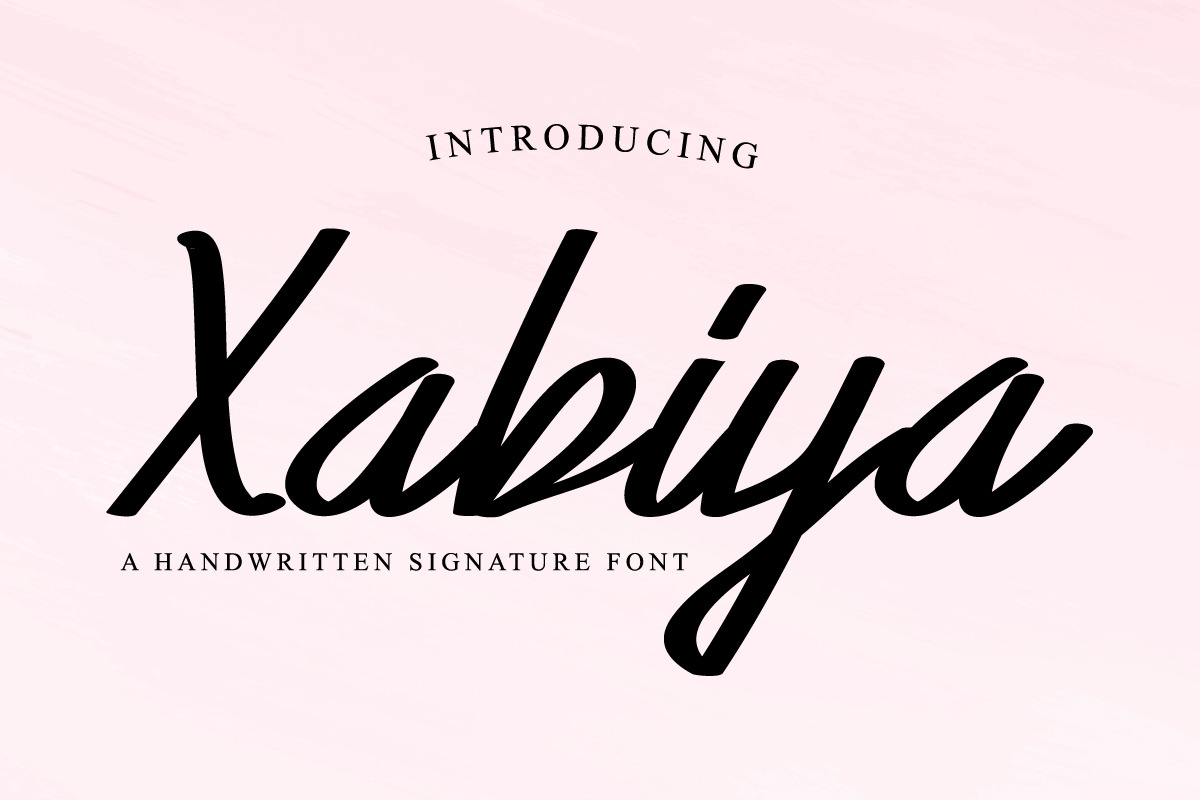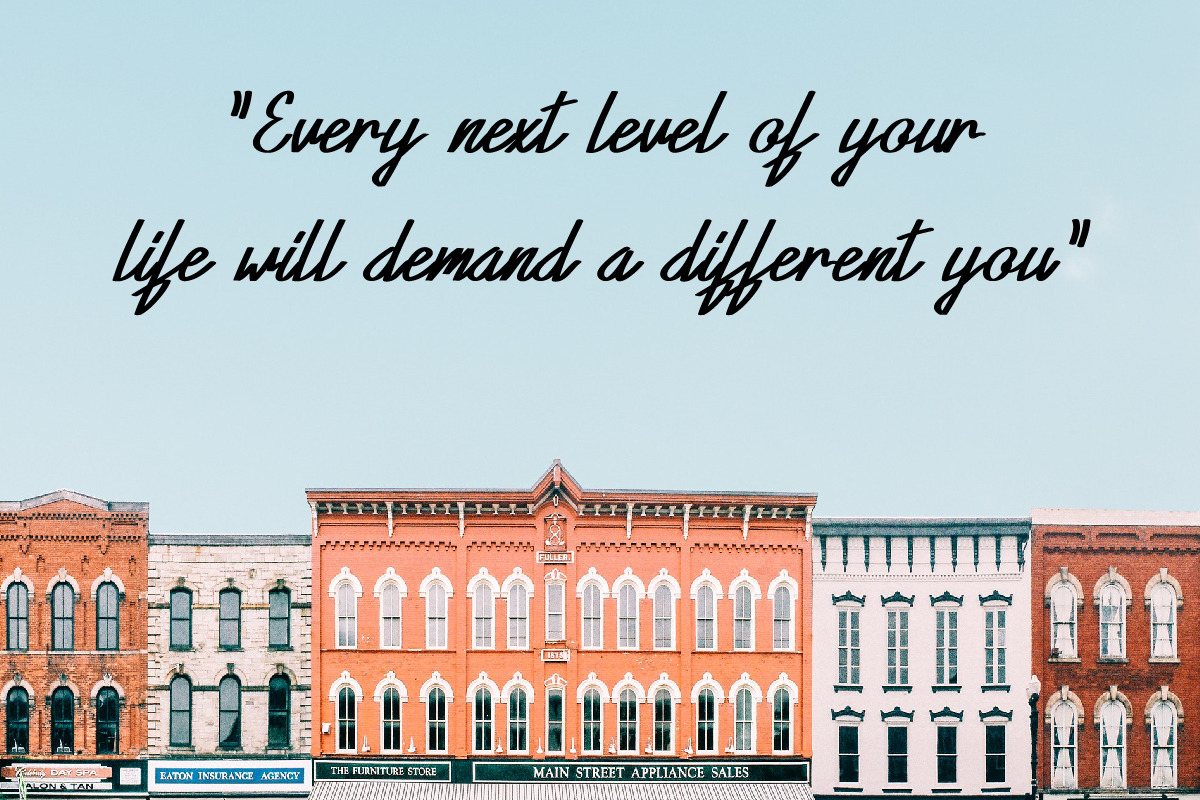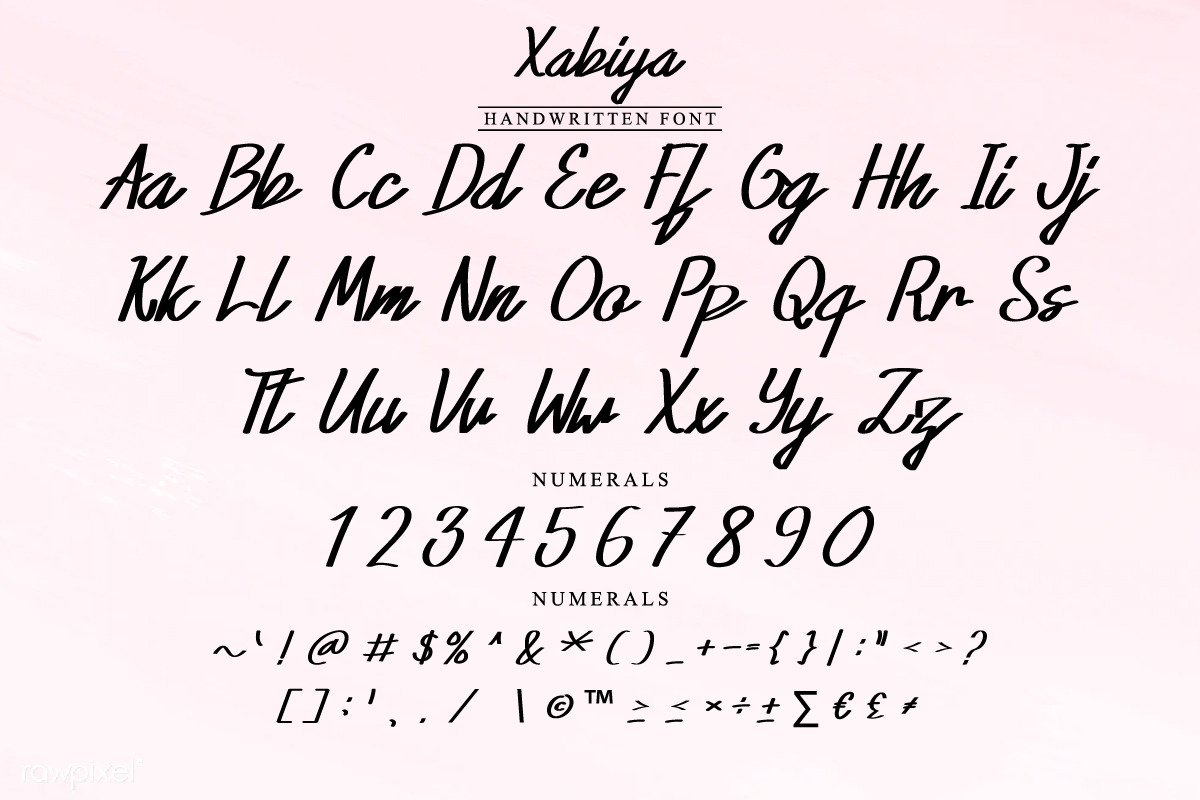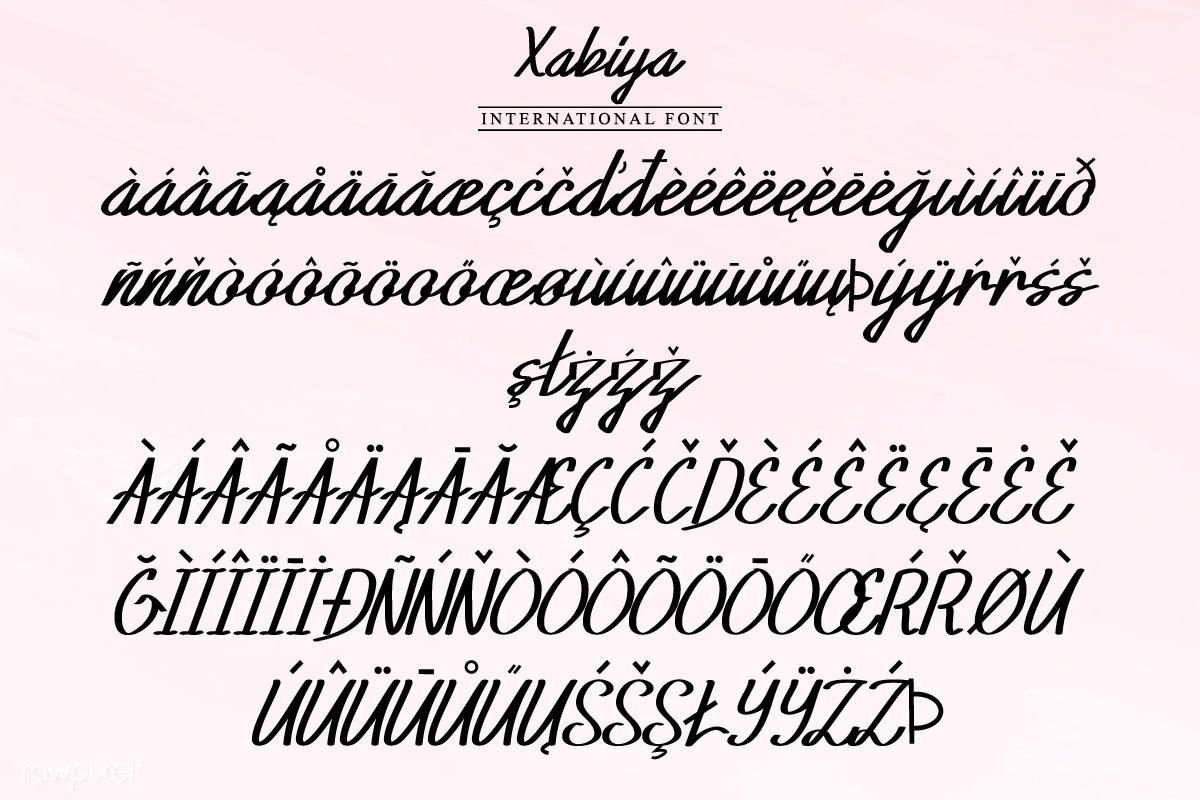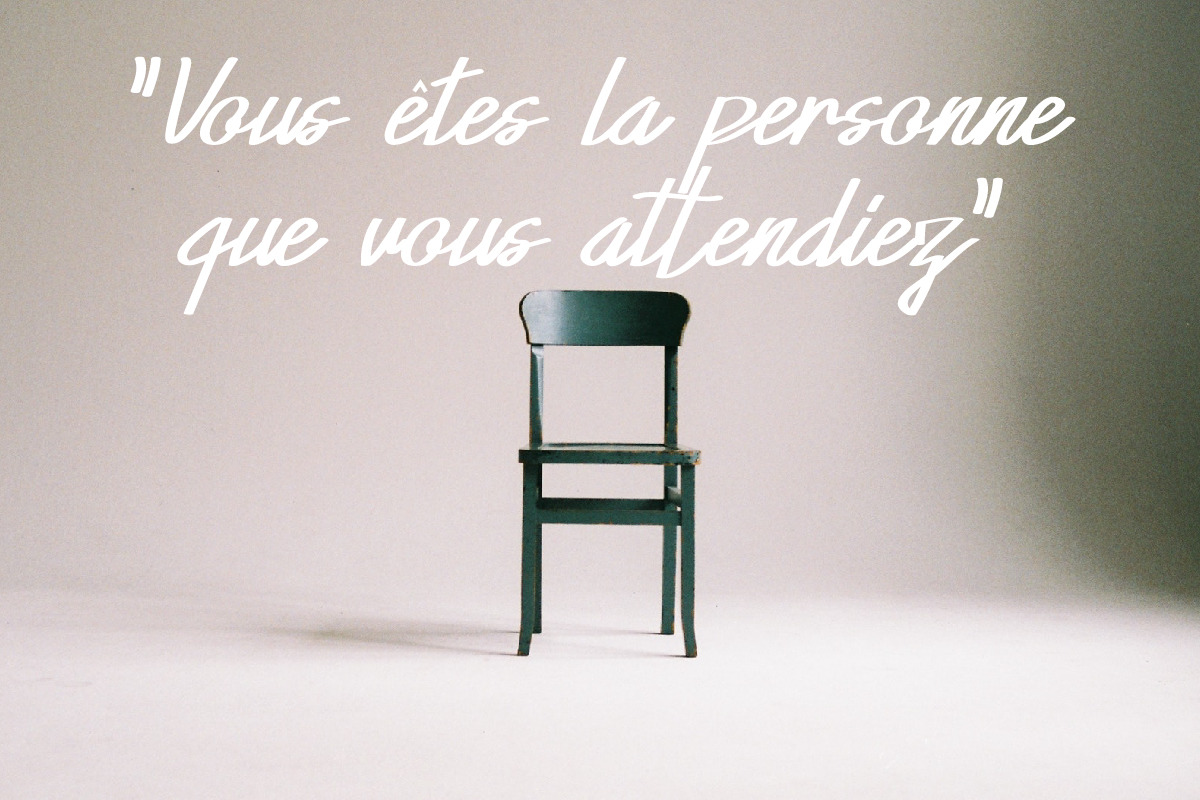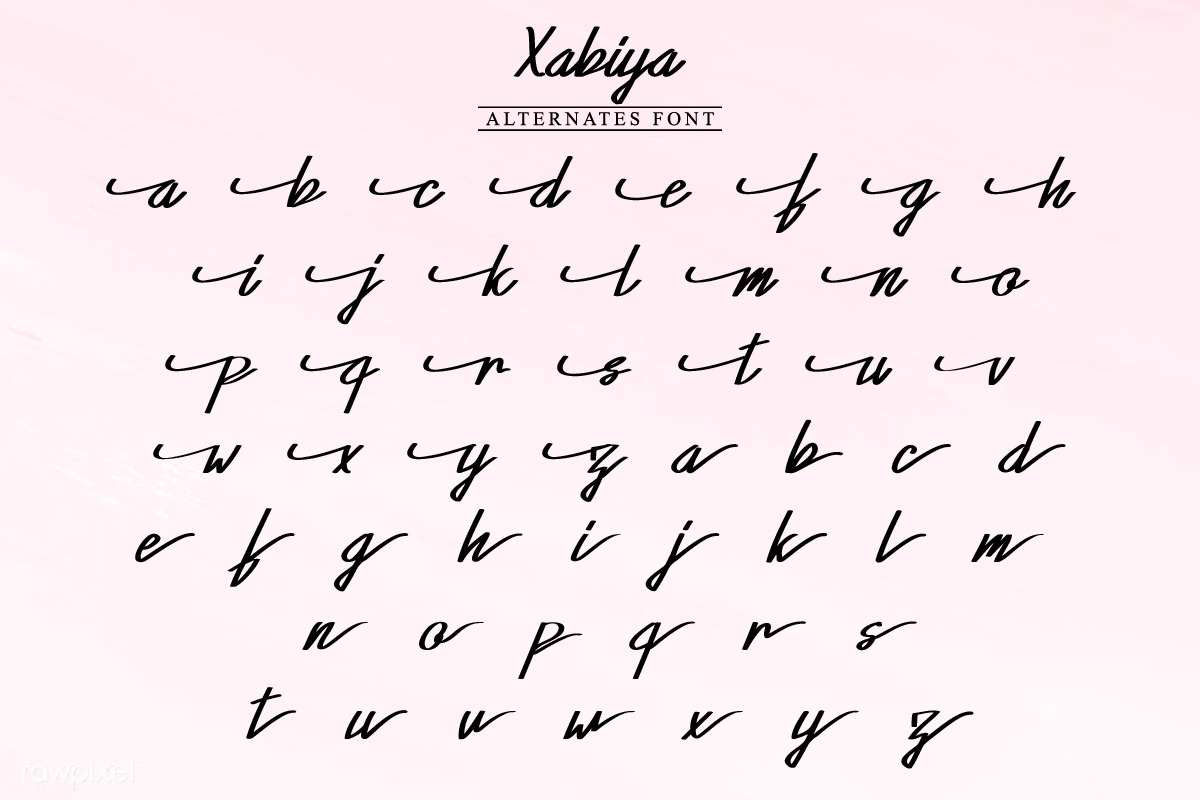
Xabiya Signature Font
Edric Studio, presenting : Xabiya Marker Font
Xabiya is a script font made with a “Marker” or “Highlighter” look style. This font was made in 2019 by one of our female lettering artist, here at our humble office.
Xabiya Marker Font just simply great for all your designs projects.